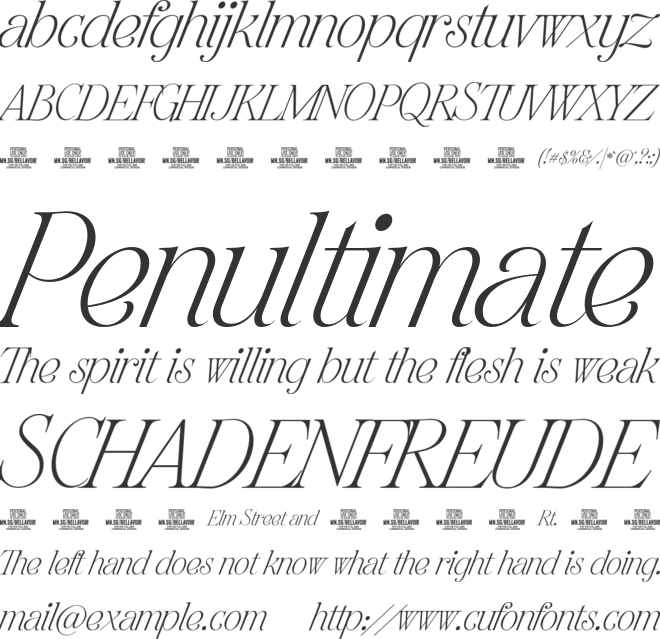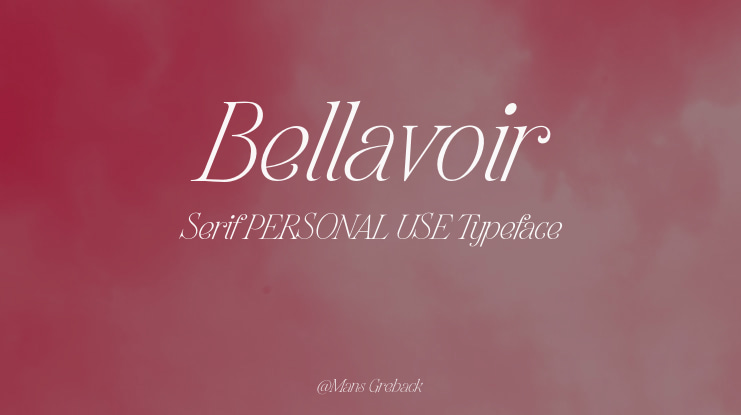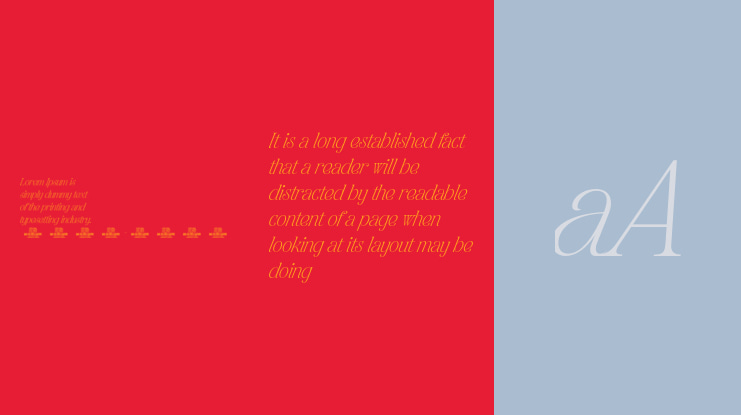
Bellavoir Serif PERSONAL USE Font
NOTE: This font is for PERSONAL USE ONLY!To purchase a commercial license, visit:https://www.mansgreback.com/product/bellavoir-delightBellavoir Serif is a classy serif font, drawn to perfection.The font stands out with its simple, lean, and crisp look, working wonders on book covers and magazines, wedding invitations or a label for a fine wine.For questions, please visit https://mansgreback.com/faq